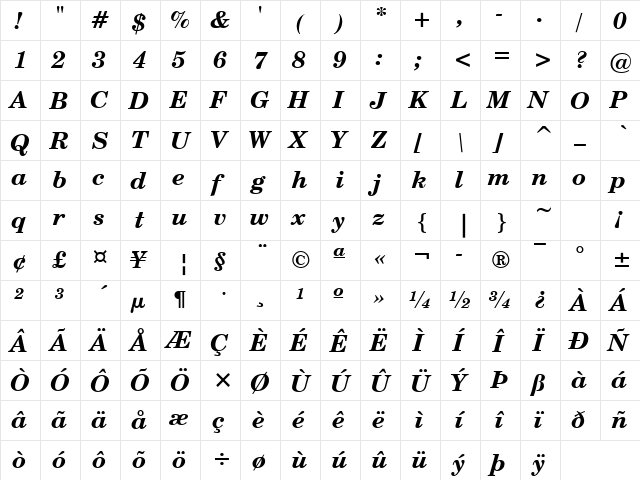
Notebook Bold Italic Font Preview
Notebook Bold Italic
Notebook Bold Italic Font Details
Design Context for Notebook Typeface
Notebook takes a measured approach to typography — its balanced proportions and neutral character make it a reliable workhorse for both digital and print work. The slanted form adds forward momentum and visual energy. Its bold stroke weight gives it real presence on the page.
Pro Tip: Try Notebook for annotation and caption copy alongside an upright companion — the contrast in angle creates a dynamic but ordered typographic system.